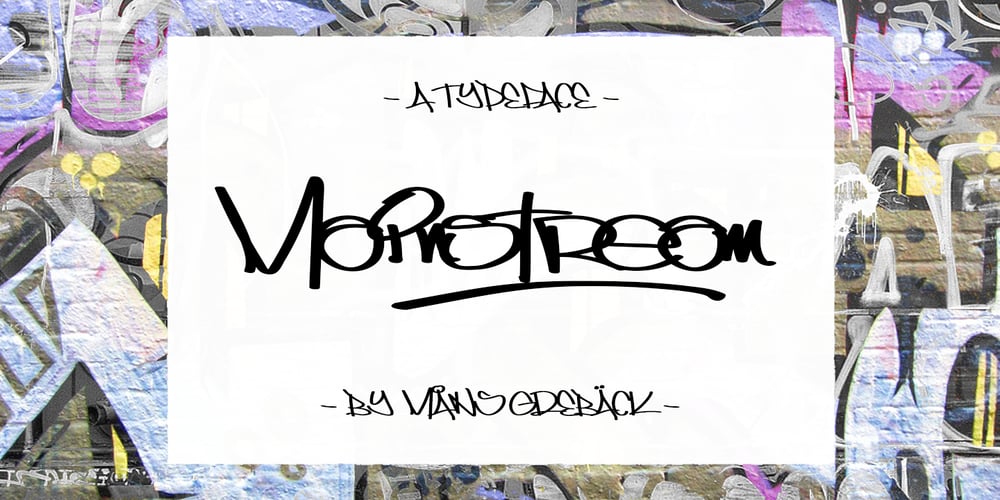
Mainstream Font Family was designed by Måns Grebäck and published by Mans Greback. Mainstream contains 1 styles and family package options. Mainstream is a graffiti handwriting font, designed created by Måns Grebäck. It is vivid, artistic and contains a wide range of characters. Write underscores after any word to make an underline. Example: Mainstream_ Write * after any letter to put a crown on it. Example: Mainstre*am